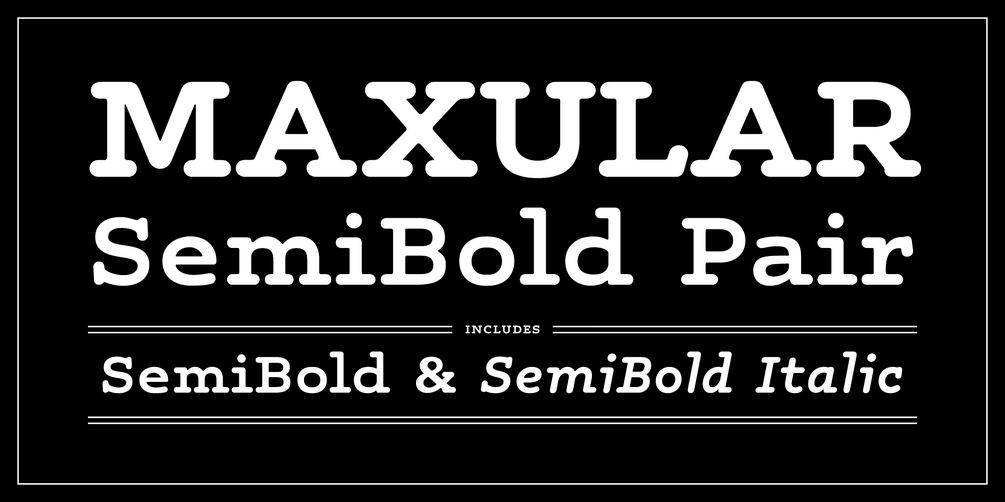
Maxular SemiBold Pair | Web Fonts
Six years in the making, Maxular is a new, rounded slab serif typeface by award-winning designer, author, and educator Steven Skaggs.
Every font in the Maxular family has a character set of over 700 glyphs, with support for 220 languages including Czech, Polish, Turkish, and Vietnamese.
Maxular is a versatile, friendly and easy to read typeface. Use it as a fresh alternative in place of other typewriter style fonts for its proportional spacing, its high readability, and superior legibility for copy set in smaller sizes. •!